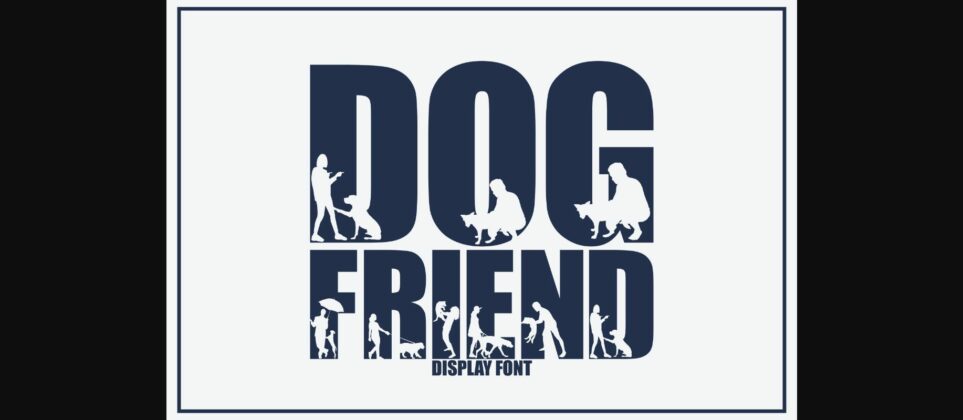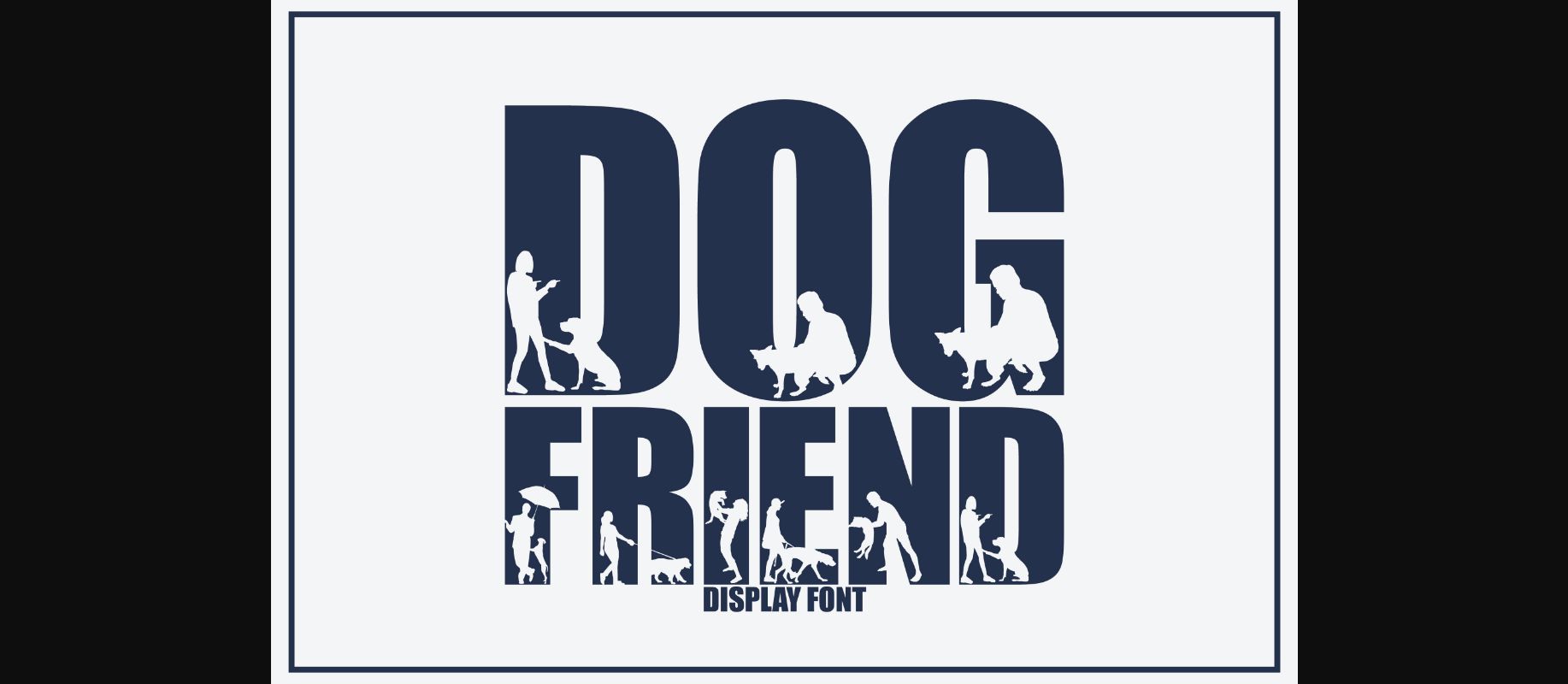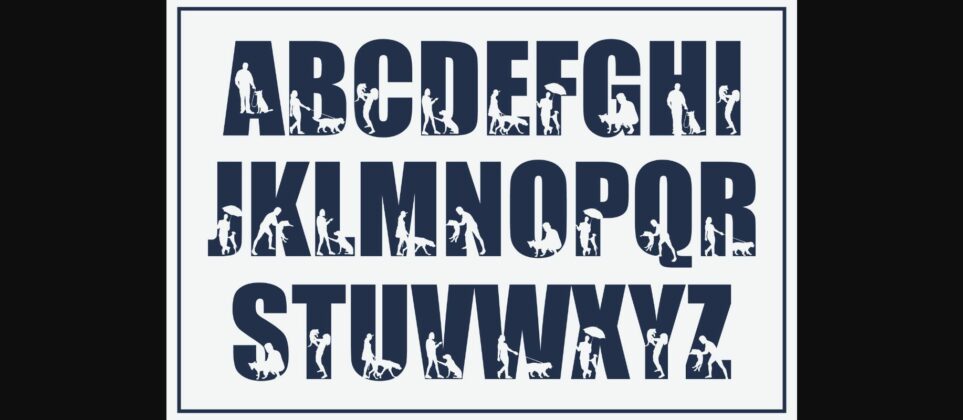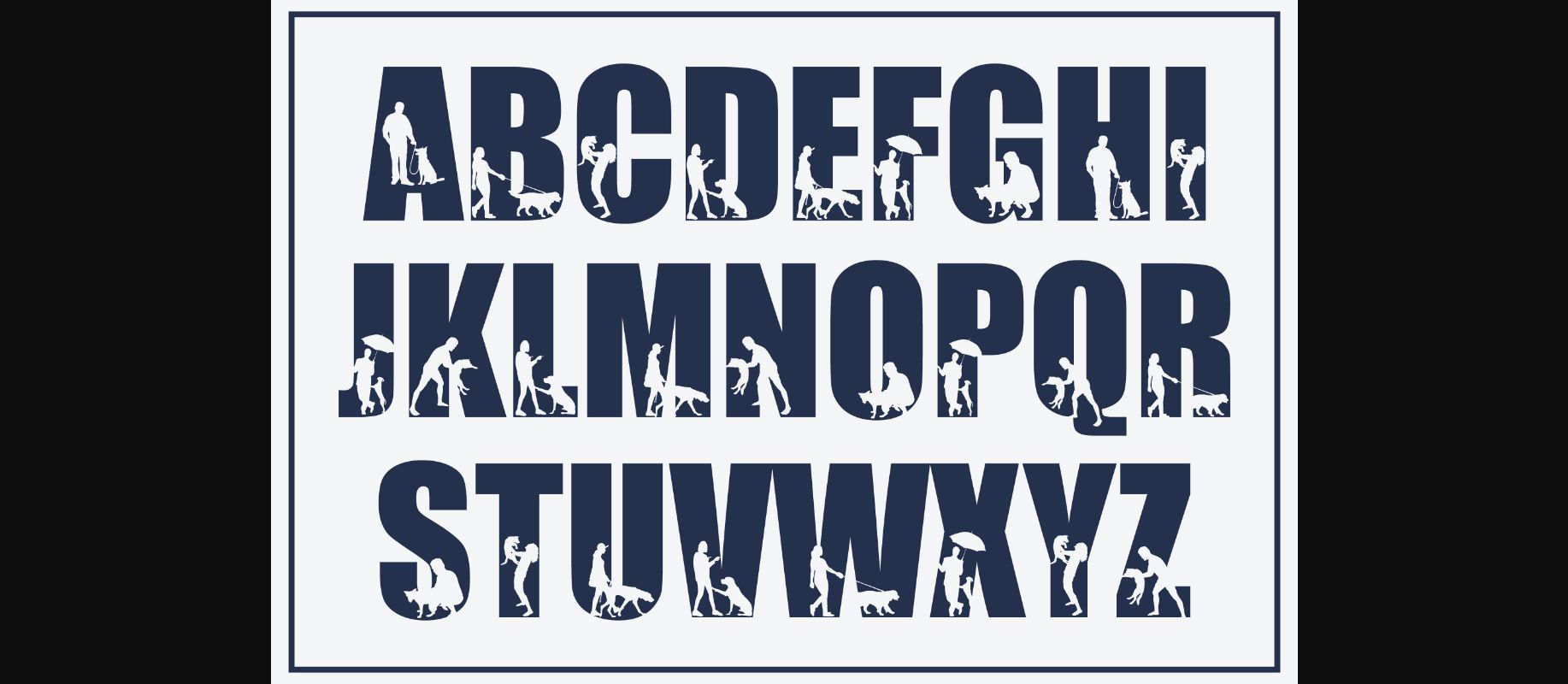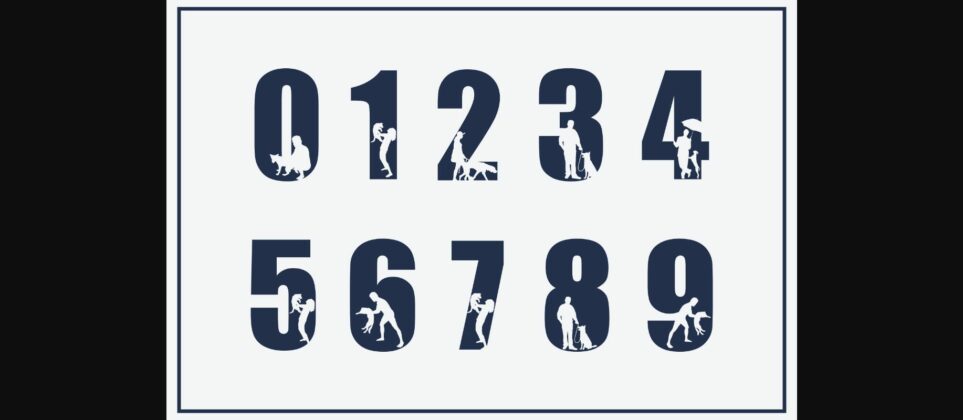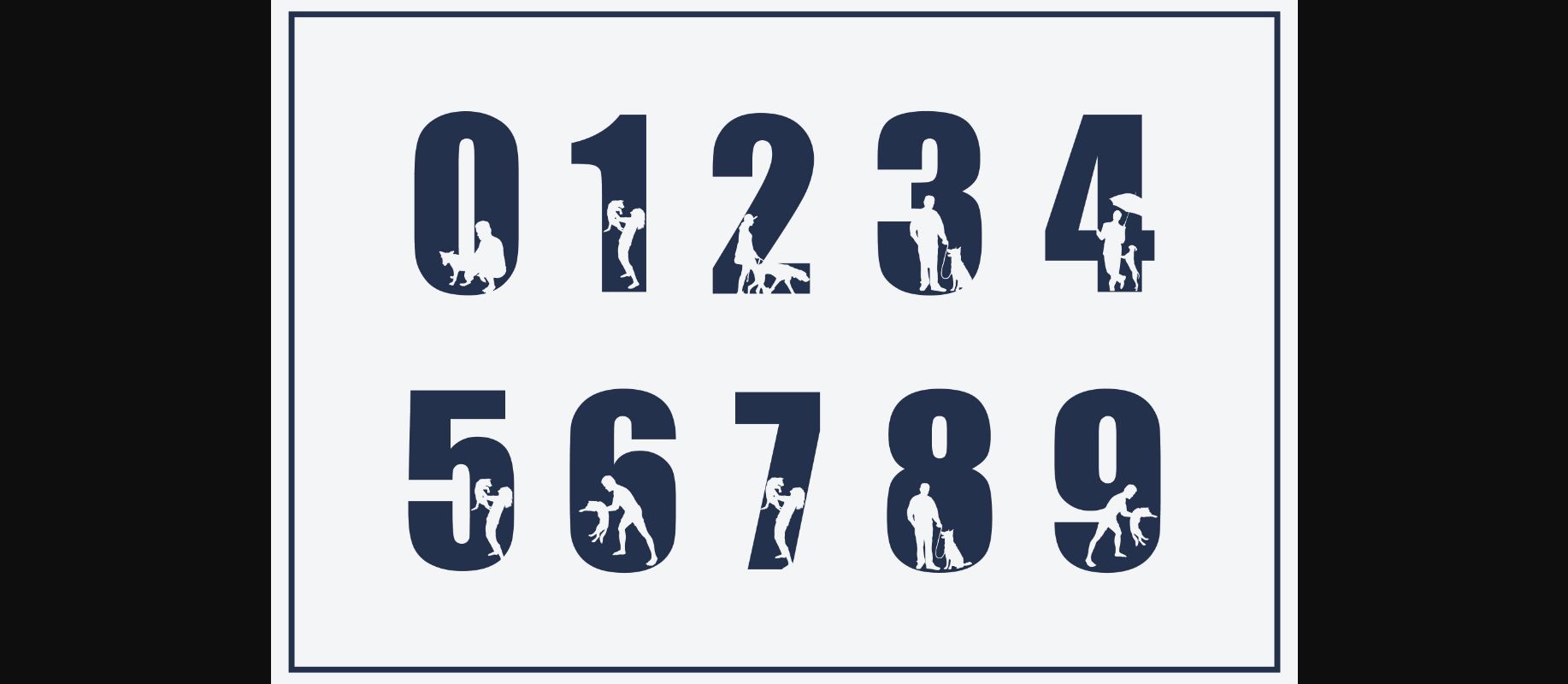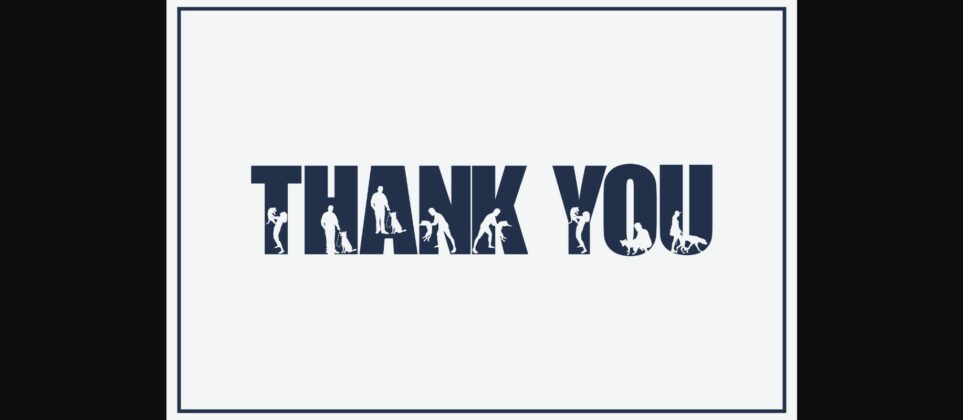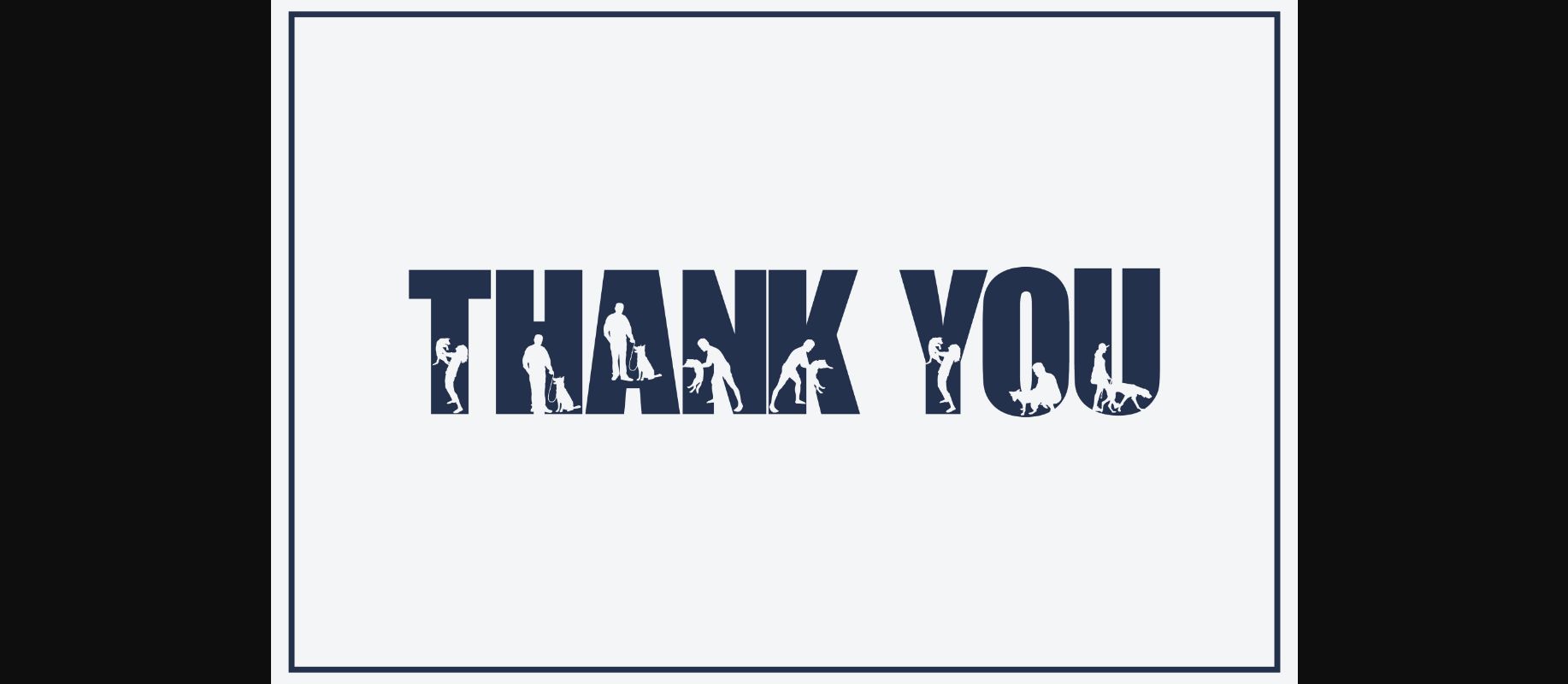
HomeDecorative FontsDog Friend Font Decorative Fonts Dog Friend Font FacebookXPinterestWhatsApp 1 of 6 ... Dog Friend Font Poster 2... Dog Friend Font Poster 3... Dog Friend Font Poster 4... Dog Friend Font Poster 5... Dog Friend Font Poster 6... About Dog Friend Font Dog Friend is a fun and cute decorative display font. It is perfectly suitable for any design or crafty idea! Add it confidently to your projects and you will love the results! DOWNLOAD NOW People also explored Misti Nicole Font Coffee Latte Font Gallegos Font Sunthis Festweek Font Marsby Font Zalika Font Berllinger Font Authentic Font Edwarstile Signature Font 409 0 TagsDog Friend Font Previous articleSpring FontNext articleClover Font LEAVE A REPLY Cancel reply Comment: Please enter your comment! Name:* Please enter your name here Email:* You have entered an incorrect email address! Please enter your email address here Website: Save my name, email, and website in this browser for the next time I comment. Personal Use Free Boston Traffic Personal Use Free Read more about this font Crellia Script Personal Use Free Read more about this font Kellana Personal Use Free Read more about this font Electroharmonix Personal Use Free Read more about this font BLOG Free vs Paid Fonts: Why Investing in Premium Fonts Is Worth It Free vs Paid Fonts: Why Premium Fonts Are Worth It in 2025 The debate of free vs paid fonts continues in the design world. While... To increase your work productivity, choose the most readable fonts. How to Cut Any Font on Cricut: Convert a Font to SVG (Free) The 10 Best Handwriting Fonts to Add Personality to Your Designs